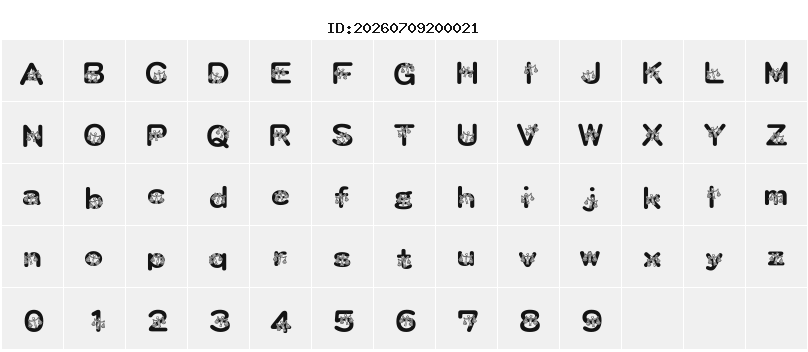
• Font Name: DFPHeXieTianCheng-B5
• Font ID: DFPHeXieTianCheng-B5
• Full Font Name: DFPHeXieTianCheng-B5
DFPHeXieTianCheng-B5.ttf is a modern, elegant sans-serif font designed for ultimate readability and visual harmony. Perfect for branding, headlines, web design, and print materials.